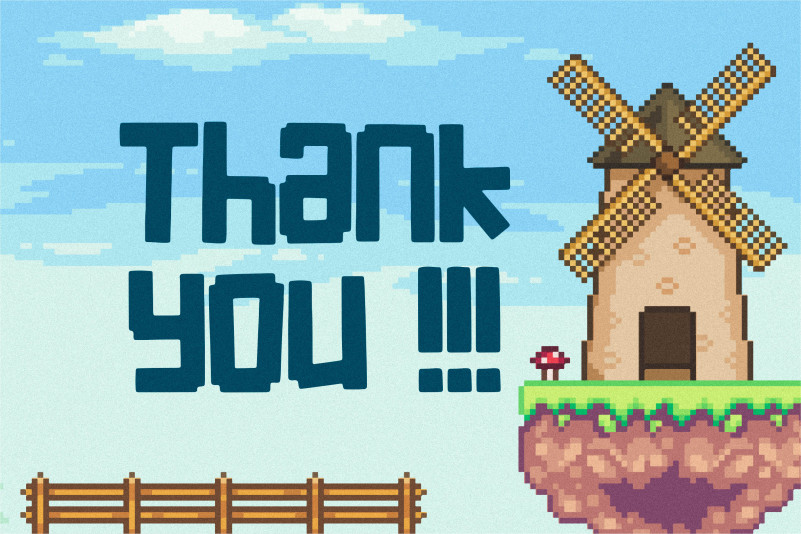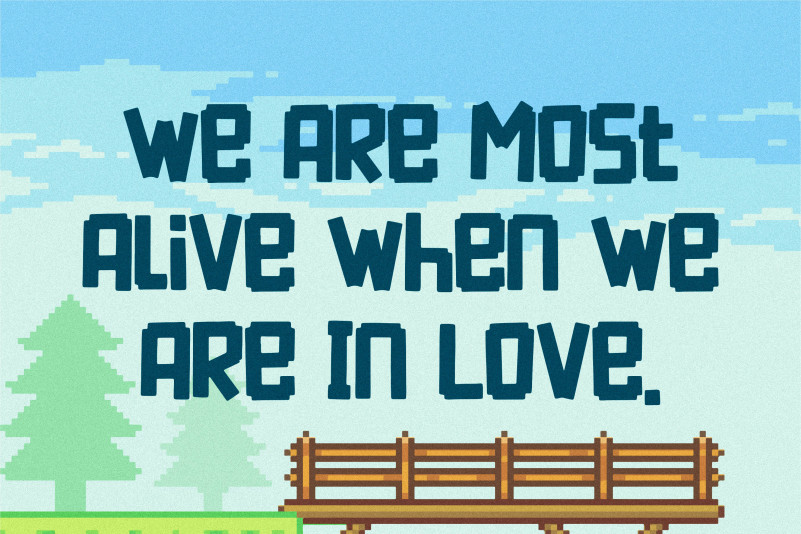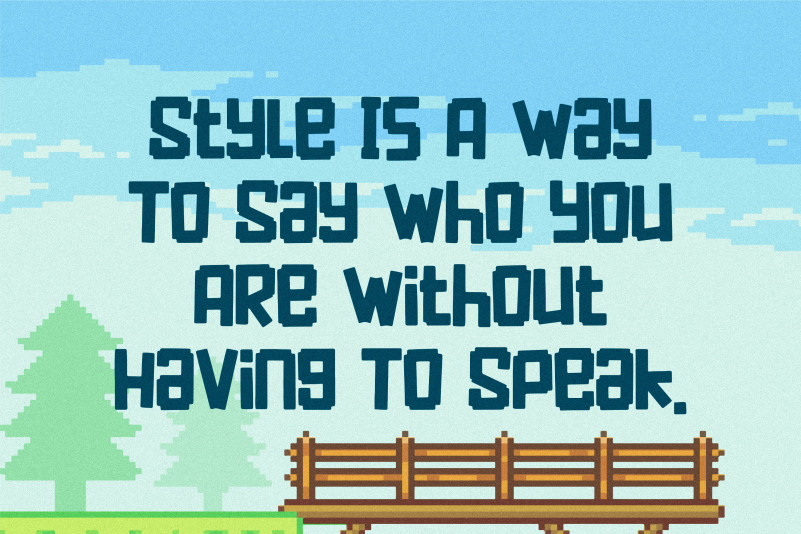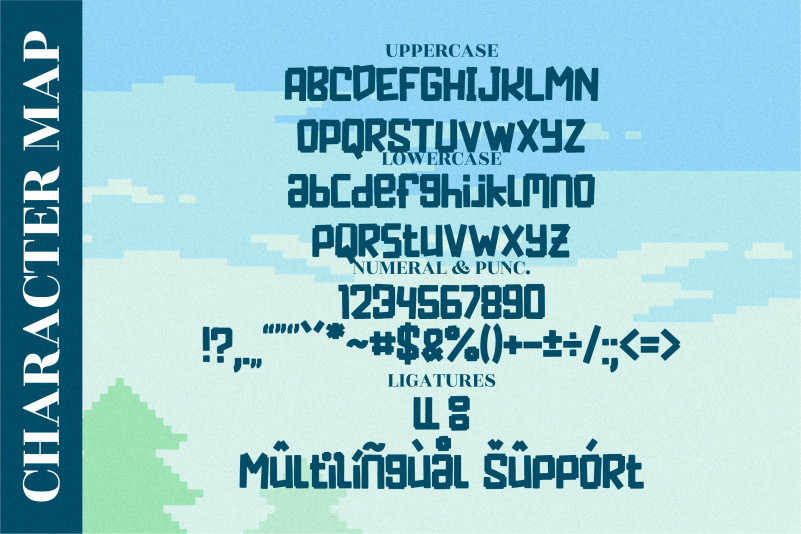
PIXEL CRAFT Font
PIXEL CRAFT Display Font
This is a cute, cool and quirky looking display font. It embodies playfulness and authenticity and is the perfect choice for any children activity or school project.